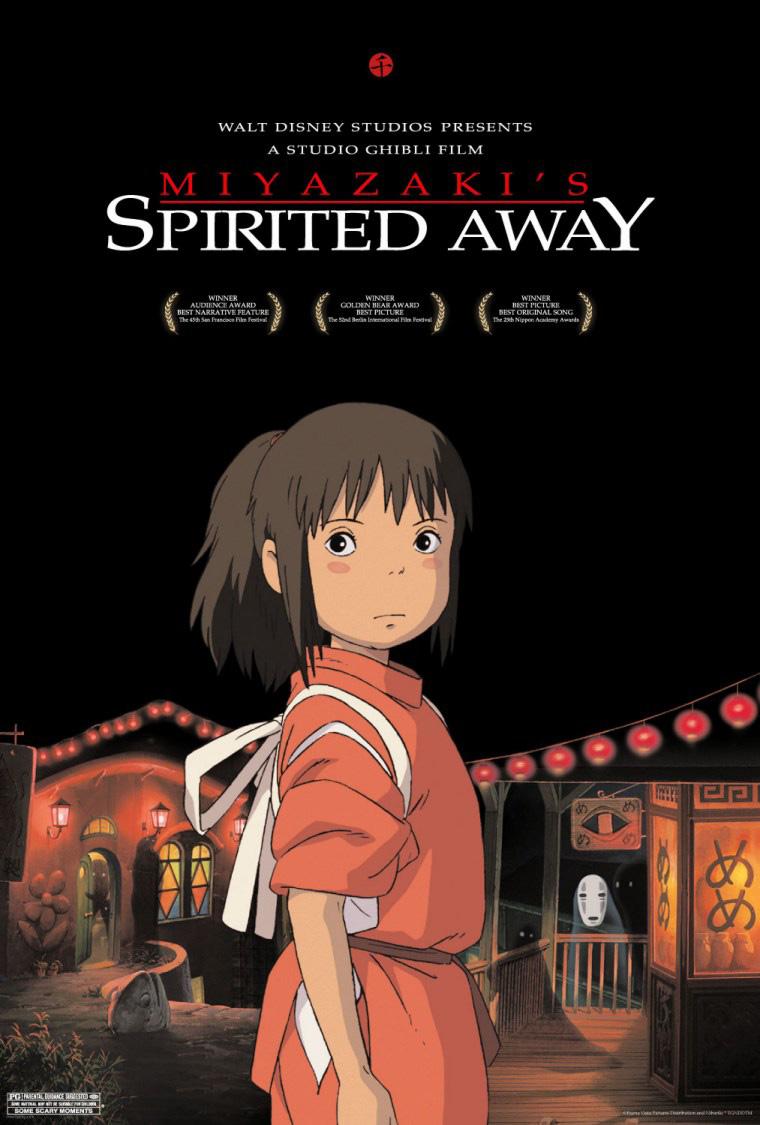
Spirited Away Font
AdventureSpirited Away is a critically acclaimed animated film by Hayao Miyazaki. It follows the story of a young girl named Chihiro as she navigates a magical world full of spirits and beings.
The movie title "Spirited Away" as seen on the poster seems to be written in Palatino font, which is considered one of the most popular typefaces in the world and was designed by Hermann Zapf in 1950.